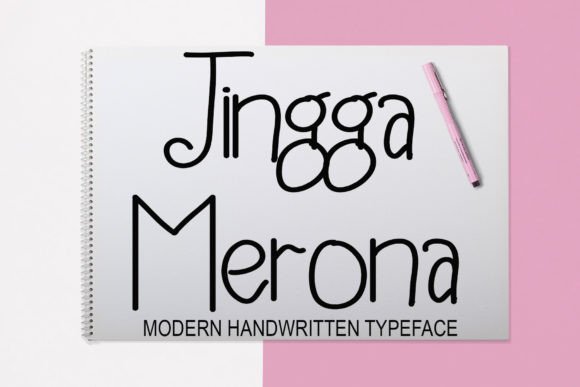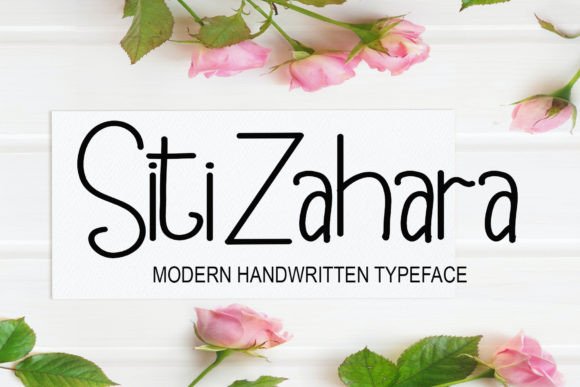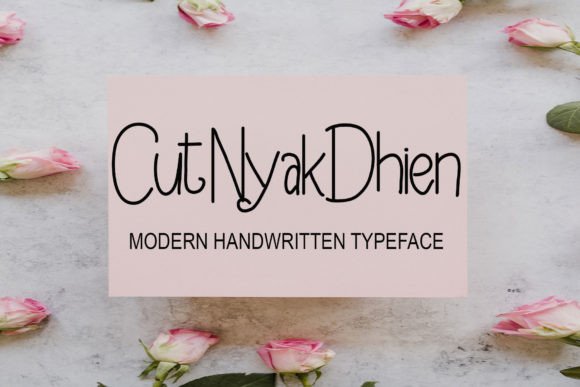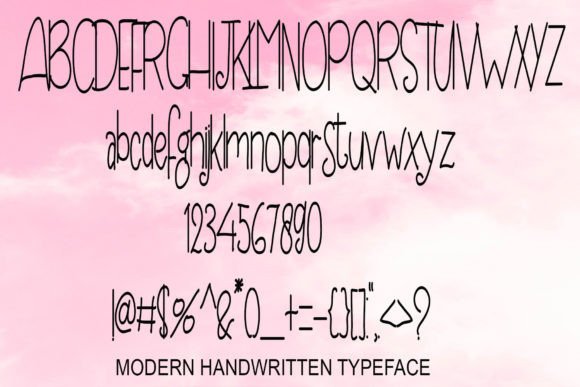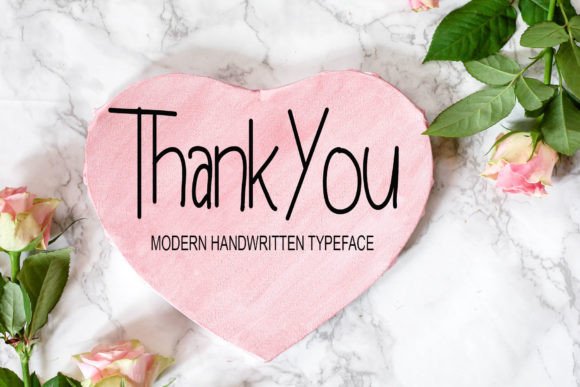
Binthang Geus Font
Add Stylish Authenticity with Binthang Geus Font
The Binthang Geus font is a stylish handwritten script crafted by hand using a tablet, offering a natural and modern look for your creative projects. Perfect for websites, wedding invitations, business cards, signatures, and all kinds of advertisements—whether product or service-related—this font combines simplicity with a cool and trendy flair.
Perfect for Websites, Invitations, and Advertising
The Binthang Geus font works beautifully across a variety of design applications including web design, event invitations, branding materials, product promotions, and marketing campaigns. Its clean and stylish letterforms provide a fresh and professional appearance that enhances your designs.
A Handwritten Script with Smooth Flow and Style
Each character in the Binthang Geus font is carefully crafted to replicate authentic handwriting with smooth, flowing strokes. This font balances simplicity with elegance, making it highly readable and visually appealing for both headlines and detailed text.
Despite its simple appearance, the Binthang Geus font maintains excellent readability at all sizes. Whether used for logos, web headers, or advertisements, it balances clarity with style, making it a versatile choice for many creative projects.
Make Your Designs Stand Out with Cool Simplicity